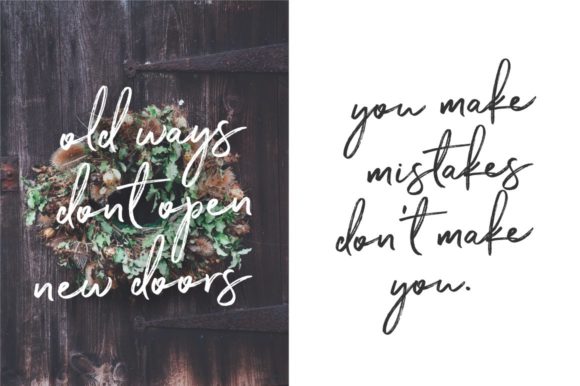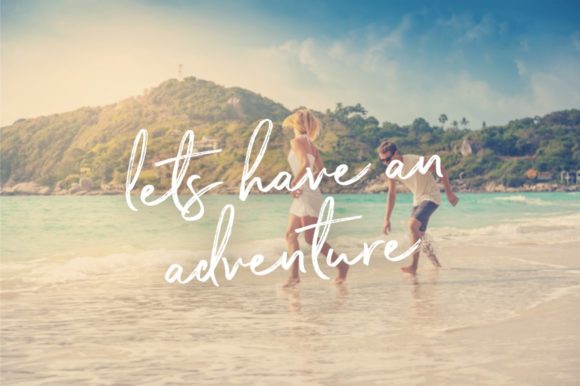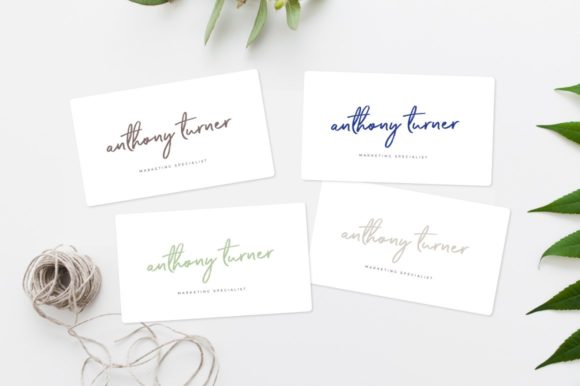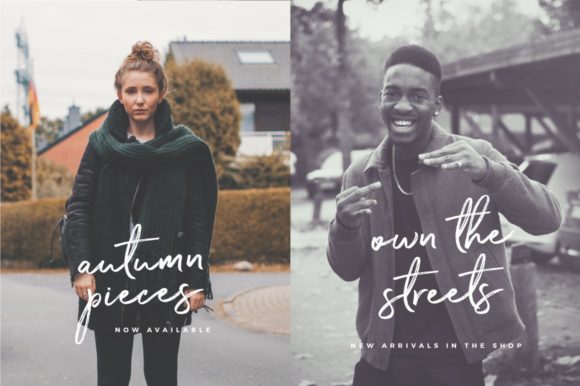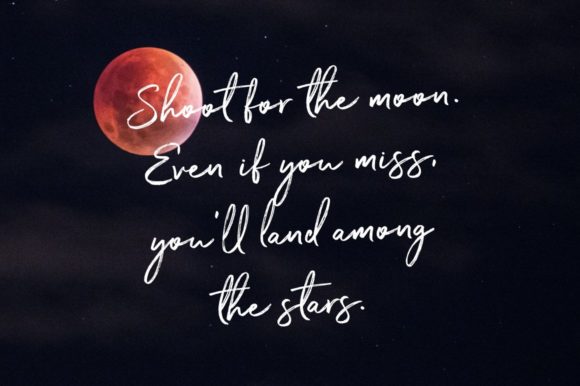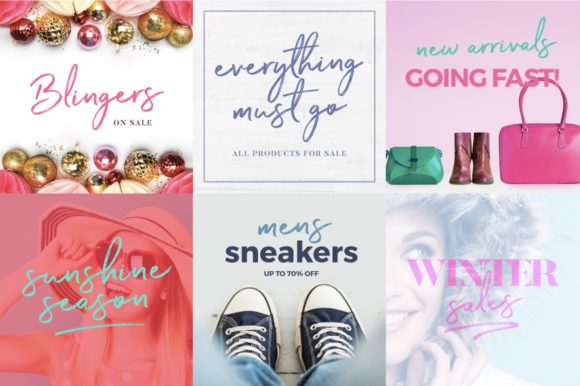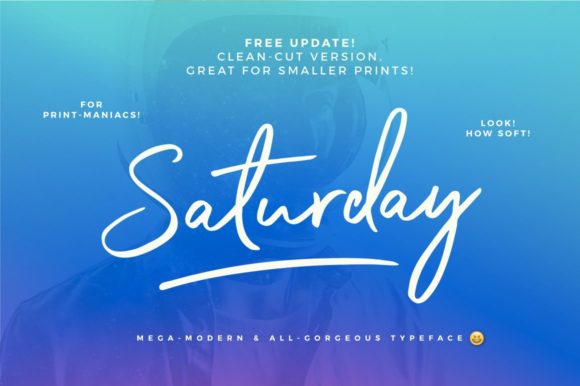
HomeScript FontsSaturday Font Script Fonts Saturday Font FacebookXPinterestWhatsApp Saturday Font Poster 2 Saturday Font Poster 3 Saturday Font Poster 4 Saturday Font Poster 5 Saturday Font Poster 6 Saturday Font Poster 7 Saturday Font Poster 8 About Saturday Font Saturday is a modern-day script with a dynamic approach to lettering. It will make any design idea stand out. DOWNLOAD ON CREATIVE FABRICAThis font is sold and delivered by Creative Fabrica. Font Canyon may earn a commission if you buy through this link. People also explored Rustic Wedding Modern Calligraphy Font Northampton Font Brownie Stencil Font Experience Font Clock Watcher Font Sandcastle Font Dreskoth Font Shelottra Font Exwife Font 327 0 TagsSaturday Font Previous articleAwesome FontNext articlePerfect Sunset Font LEAVE A REPLY Cancel reply Comment: Please enter your comment! Name:* Please enter your name here Email:* You have entered an incorrect email address! Please enter your email address here Website: Save my name, email, and website in this browser for the next time I comment. Personal Use Free Foo Personal Use Free Read more about this font Saolice Personal Use Free Read more about this font The Pottery Personal Use Free Read more about this font Letter Clips Personal Use Free Read more about this font BLOG To increase your work productivity, choose the most readable fonts. In today's fast-paced work environment, where digital communication and information consumption are integral to our daily routines, the choice of fonts can significantly impact... How to Cut Any Font on Cricut: Convert a Font to SVG (Free) The 10 Best Handwriting Fonts to Add Personality to Your Designs Elegant Wedding Invitation Fonts – Handwritten & Script Fonts